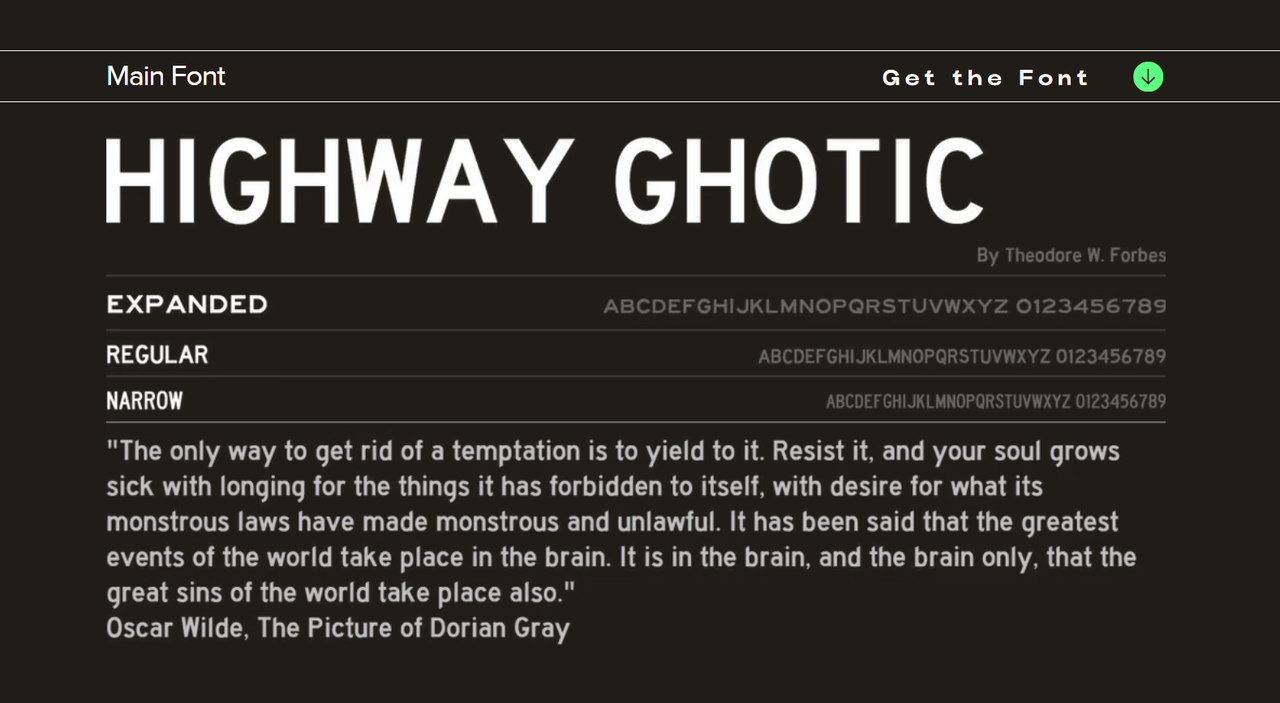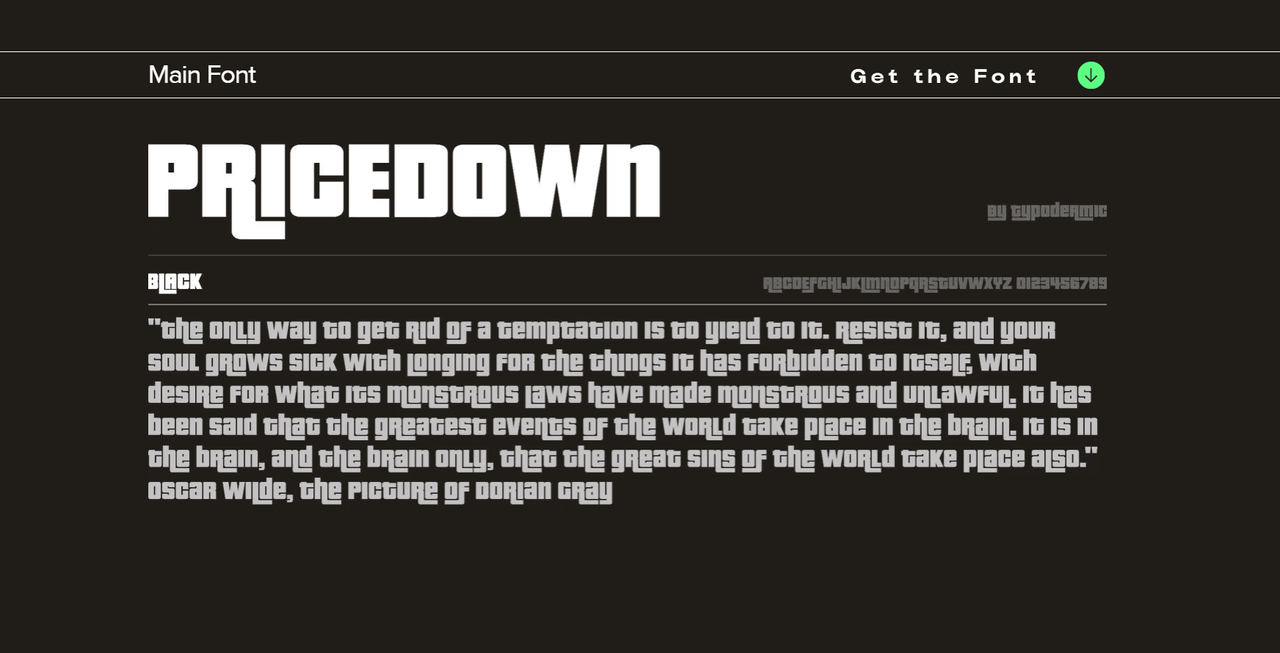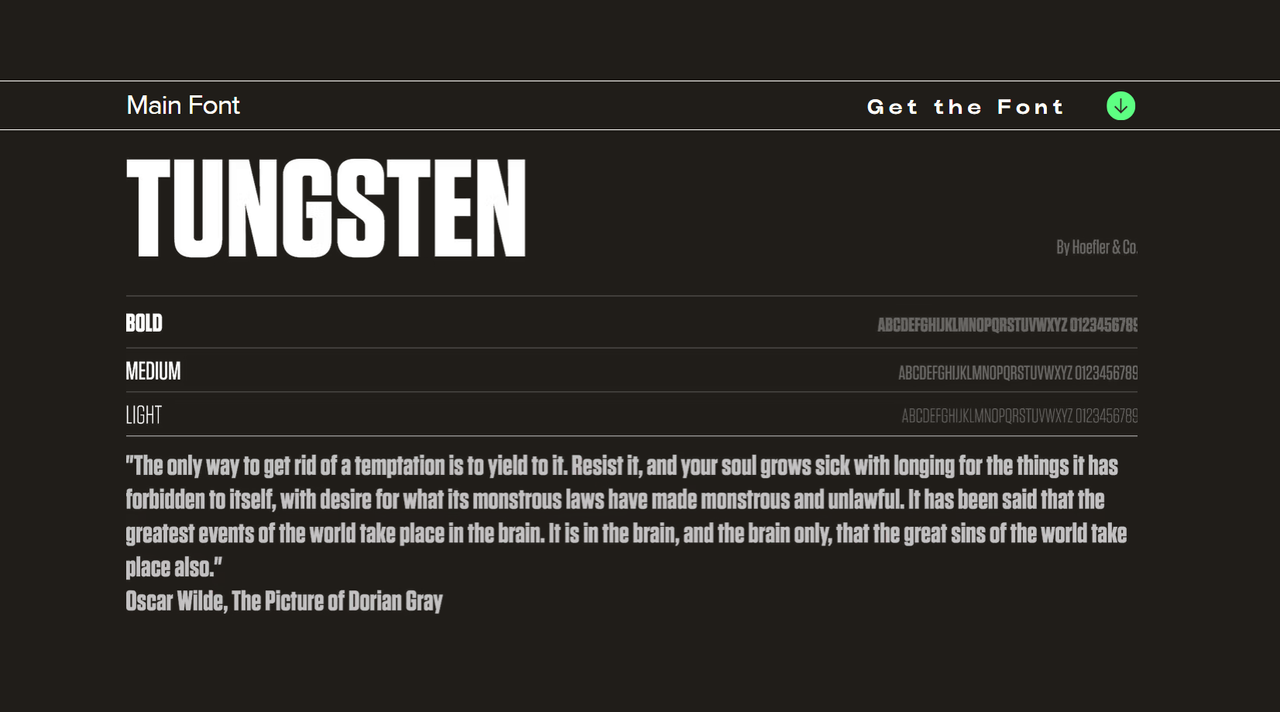
If you like video games and typography, you'll love Game Font Library
Ever wished you had a quick reference library on hand for those times when you wonder what font they used for the interface in Halo, or in Grand Theft Auto or Valorant? Then you'll want to take a look at the Game Font Library.
The name says it all, really. This online treasure trove collects a list of popular video game titles and tells you what fonts they used, both the main, and secondary font and even the tertiary font if there was one. The games can be searched by developer, publisher, genre, foundry and typeface, and it's really wonderful resource for game developers and typography fans alike (for more type inspiration, see our roundup of the best free fonts).
Game Font Library is the work of Charlotte Couderc, lead UI artist on Microsoft Flight Simulator. Charlotte says that as a UI Artist for AAA games and a typography enthusiast herself, she wanted to highlight the typefaces that define the visual identity of games, whether they come from user interfaces, logos, or graphic elements. She also gives credit to the UI artists who worked on each game.
The library features only official fonts named by the developers themselves, not recreations or unofficial approximations of bespoke fonts. Charlotte says she personally contacts UI artists to research the typefaces used, "ensuring accuracy and preserving the true typographic heritage of the industry".
And Halo? According to the library, Halo's main font is Highway Ghotic, while Grand Theft Auto uses Pricedown as its main font and Valorant uses Tungsten.